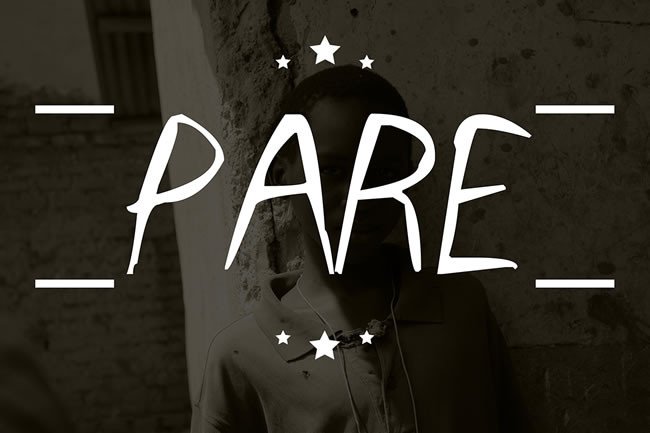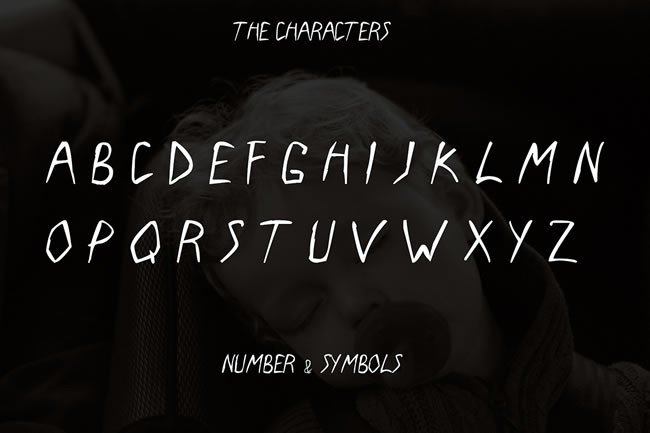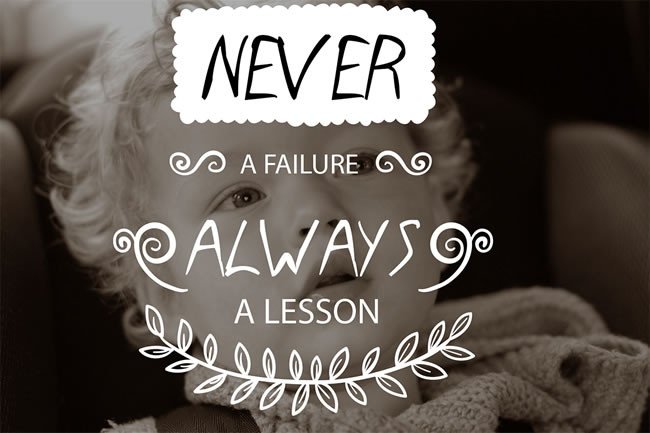
Helsing Font
About Helsing Font
‘Helsing’ is a new fresh & modern typeface! Perfect for designing invitations, greeting cards, branding materials, business cards, quotes, posters, and more!